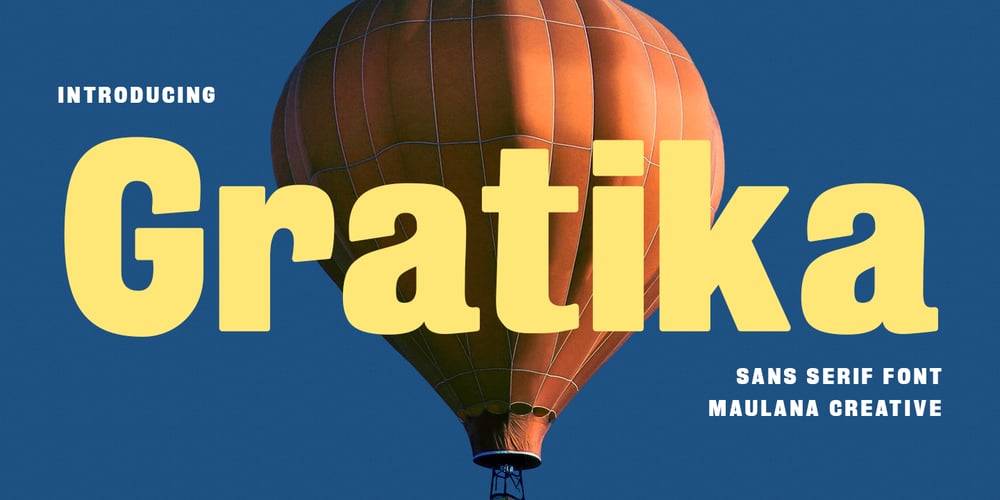
MC Gratika Font Family was designed by Gilang Maulana and published by Maulana Creative. MC Gratika contains 1 styles and family package options. Gratika is a Strong Sharp edges sans Display font. ExtraBold stroke, fun character with a bit of ligatures and alternates. To give you an extra creative work. Gratika font support multilingual more than 100+ language. This font is good for logo design, Social media, Movie Titles, Books Titles, a short text even a long text letter and good for your secondary text font with script or serif. Make a stunning work with Gratika font. Cheers, Maulana Creative